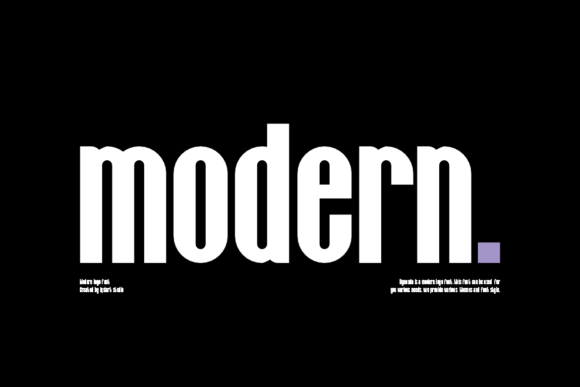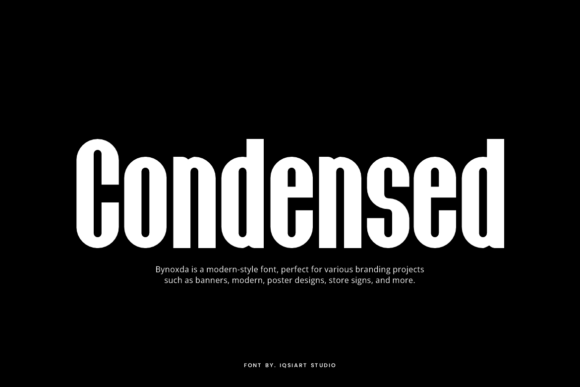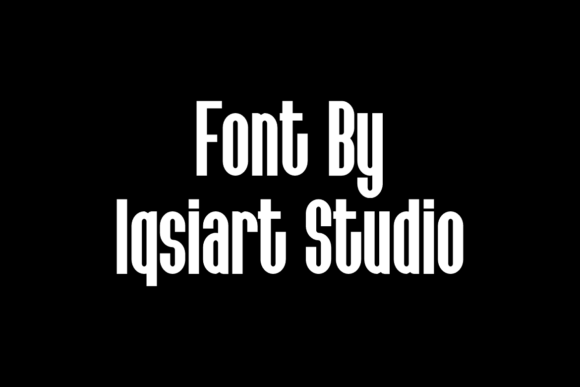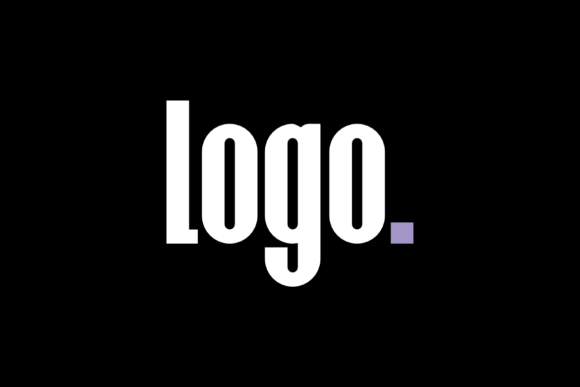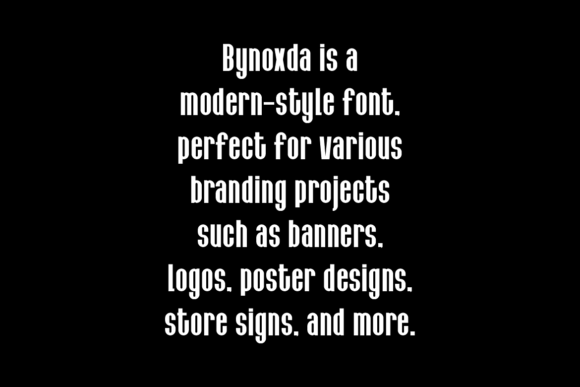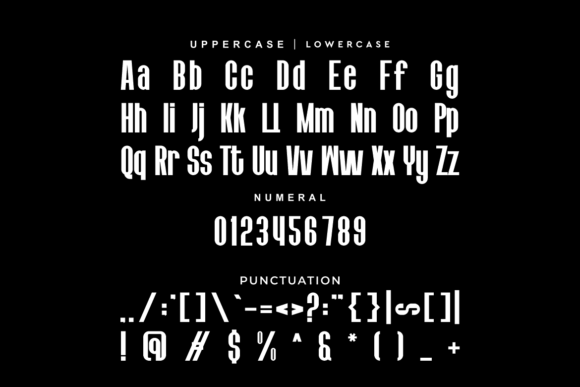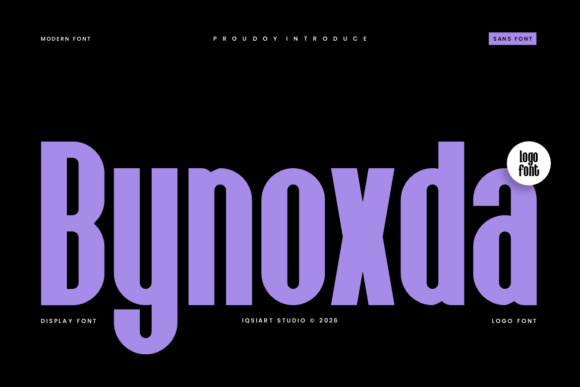
The Power of Bynoxda Font: Elevate Your Design with Ultra-Condensed Sophistication
I’ll never forget the design project that pushed me to discover the game-changing Bynoxda Font. I was working on a luxury brand campaign, tasked with creating a bold, eye-catching logo that would make a statement. The catch? The client wanted something that would fit within a tight horizontal space while still packing a vertical punch. After hours of scouring font libraries and trying out various typefaces, I stumbled upon Bynoxda – and my design woes disappeared instantly. 🚀
An Honest Review of Bynoxda Font
- 💥 **Towering presence**: Bynoxda’s ultra-condensed design and extreme height make it perfect for creating massive headlines and logotypes that demand attention.
- 🎯 **Versatility**: This font is a powerhouse for editorial design, high-fashion branding, and even event posters – anywhere you need to make a bold statement.
- 💻 **Easy to use**: Bynoxda’s clean lines and simple shapes ensure it remains legible even at large sizes or when used in tight spaces.
- 📸 **Visual impact**: The font’s narrow proportions and towering height create a deep, cinematic sense of scale that’s perfect for high-end designs.
While Bynoxda is an incredible font, there are a few things to keep in mind:
- 🤔 **Limited use cases for body text**: Due to its ultra-condensed design, Bynoxda might not be the best choice for lengthy paragraphs or body text.
- ⚠️ **Requires careful letter-spacing**: To get the most out of Bynoxda, you may need to experiment with tight letter-spacing to achieve the desired visual impact.
The Story Behind Bynoxda Font
Rumor has it that Bynoxda was inspired by the sleek skyscrapers of modern cities and the bold, architectural designs found in high-end fashion magazines. Its creator, a visionary type designer, sought to craft a font that would embody the perfect balance of modern sophistication and industrial strength. The result is Bynoxda – a towering, ultra-condensed sans font that’s redefining the world of typography.
| Font Name | Bynoxda Font |
| Author | IqsiartStudio |
| What makes Bynoxda Font unique? | Bynoxda’s extreme height and narrow proportions make it perfect for creating massive headlines and logotypes that demand attention. |
| Is Bynoxda suitable for body text? | While Bynoxda is stunning for headings and titles, its ultra-condensed design may not be ideal for lengthy paragraphs or body text. |